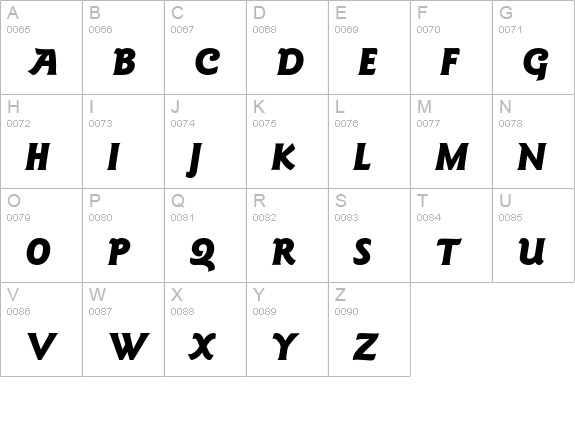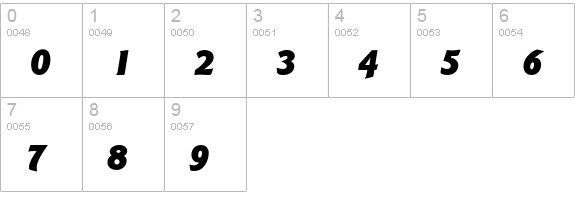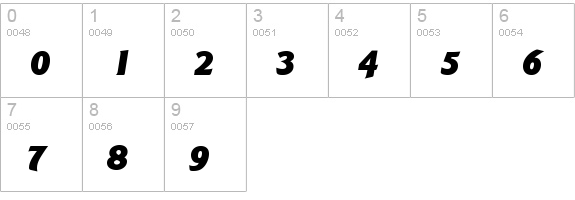
GoudySansEF-BlackItalic is a bold and elegant typeface that exudes sophistication and modernity. With its sharp angles and sleek curves, this font is perfect for making a bold statement in your design projects. The italic style adds a touch of flair and dynamism, making it ideal for headlines, logos, and branding materials. The best part about GoudySansEF-BlackItalic is that it is completely free to download. You can get your hands on this stunning font at FontsMarket.com, where you can access a wide range of high-quality fonts for your creative endeavors. Don't miss out on the opportunity to enhance your designs with this striking typeface that will surely make a lasting impression.